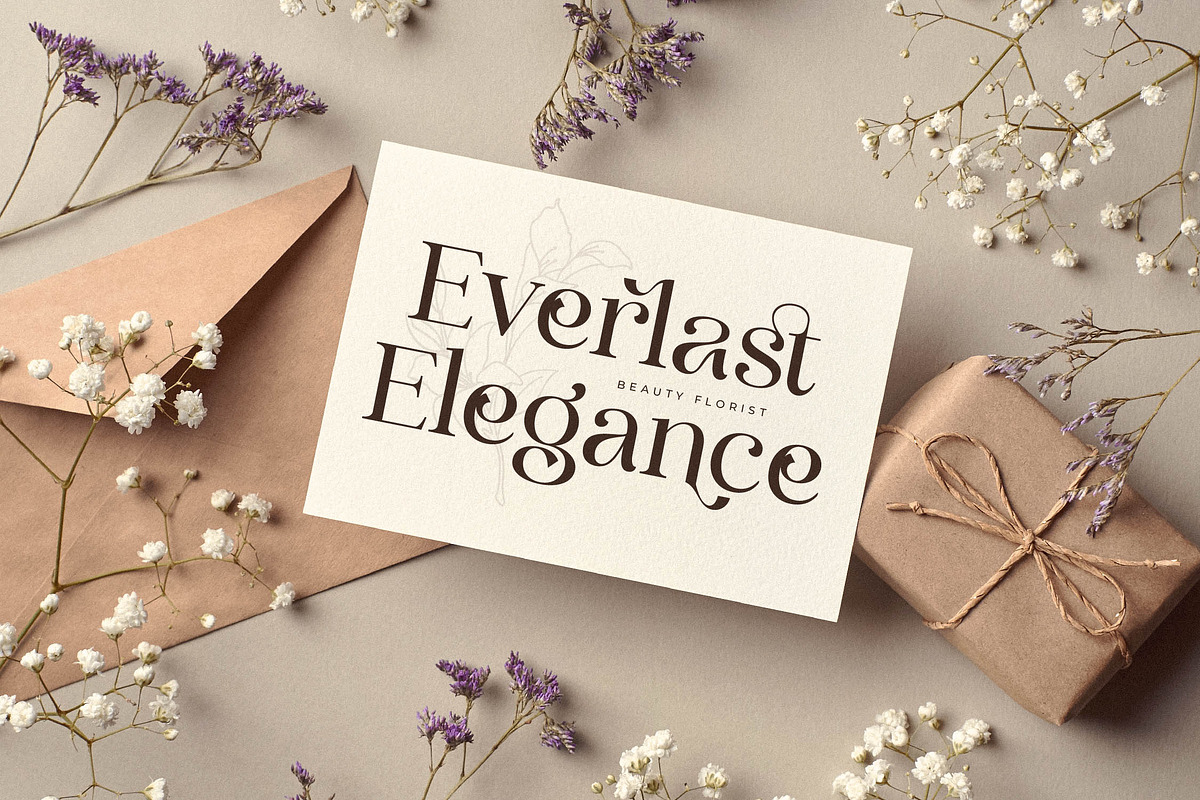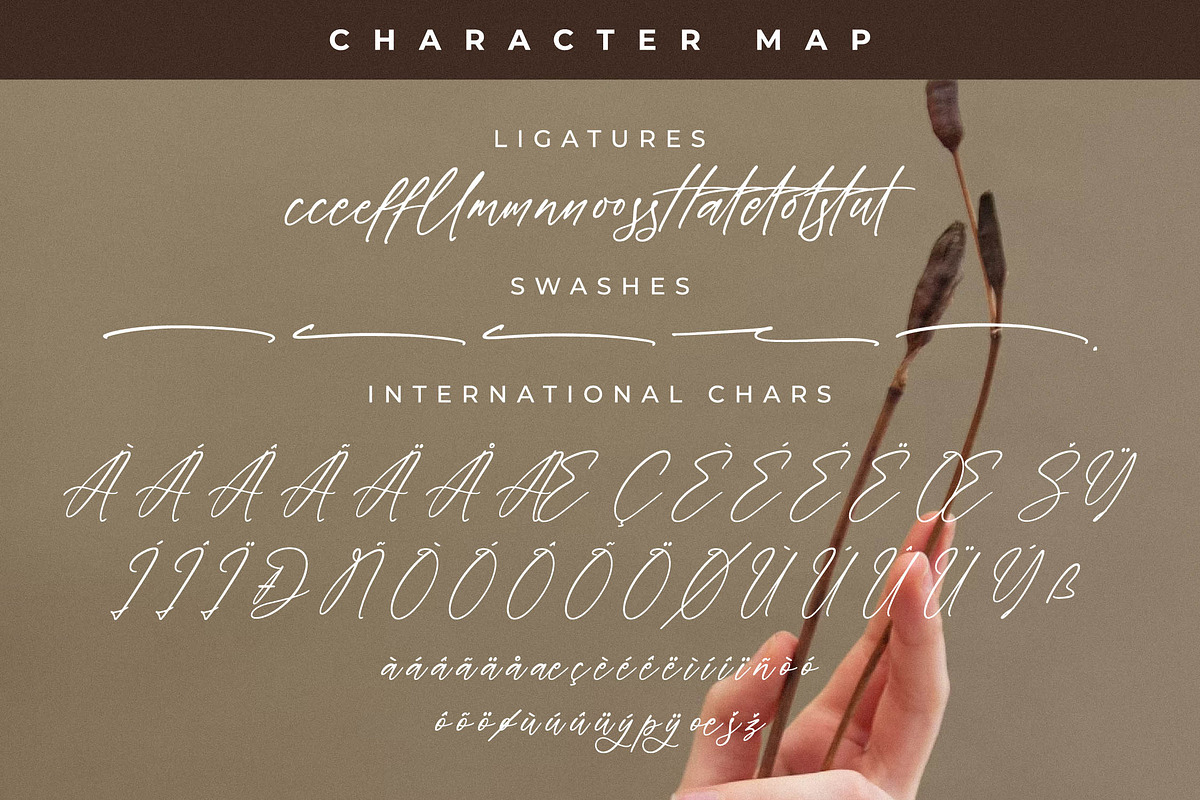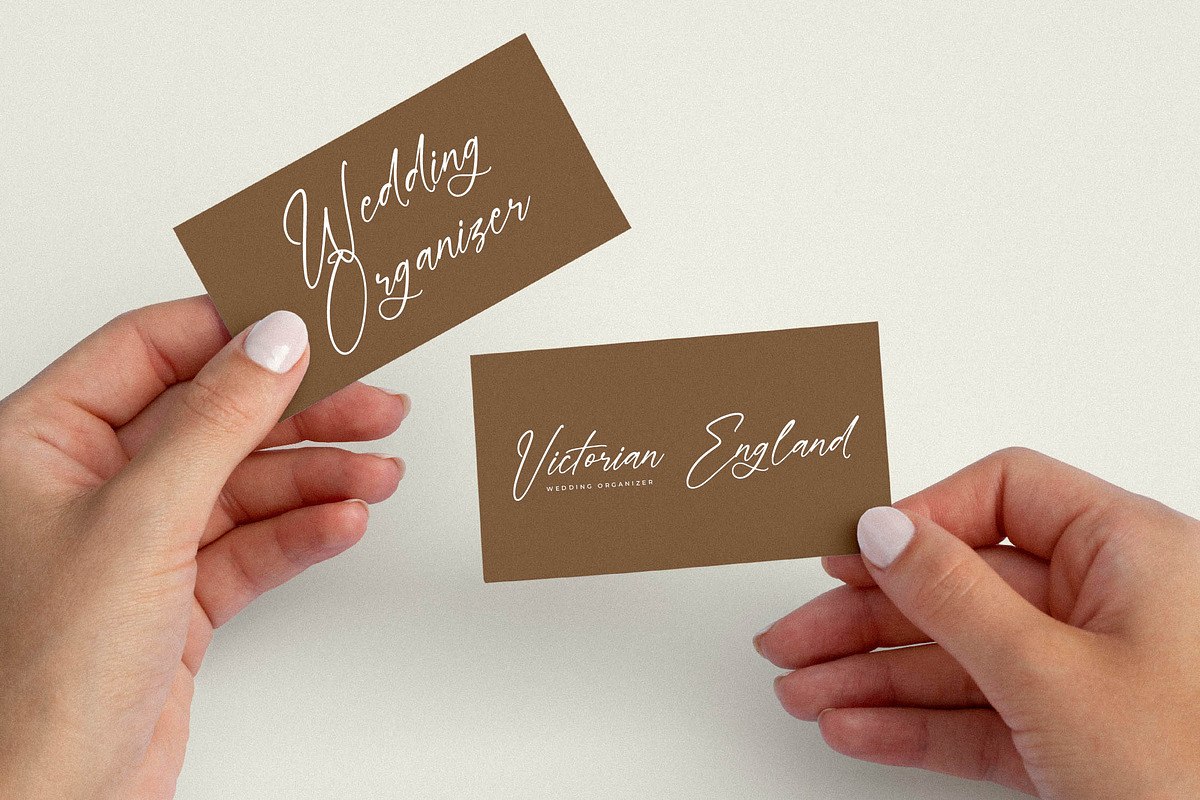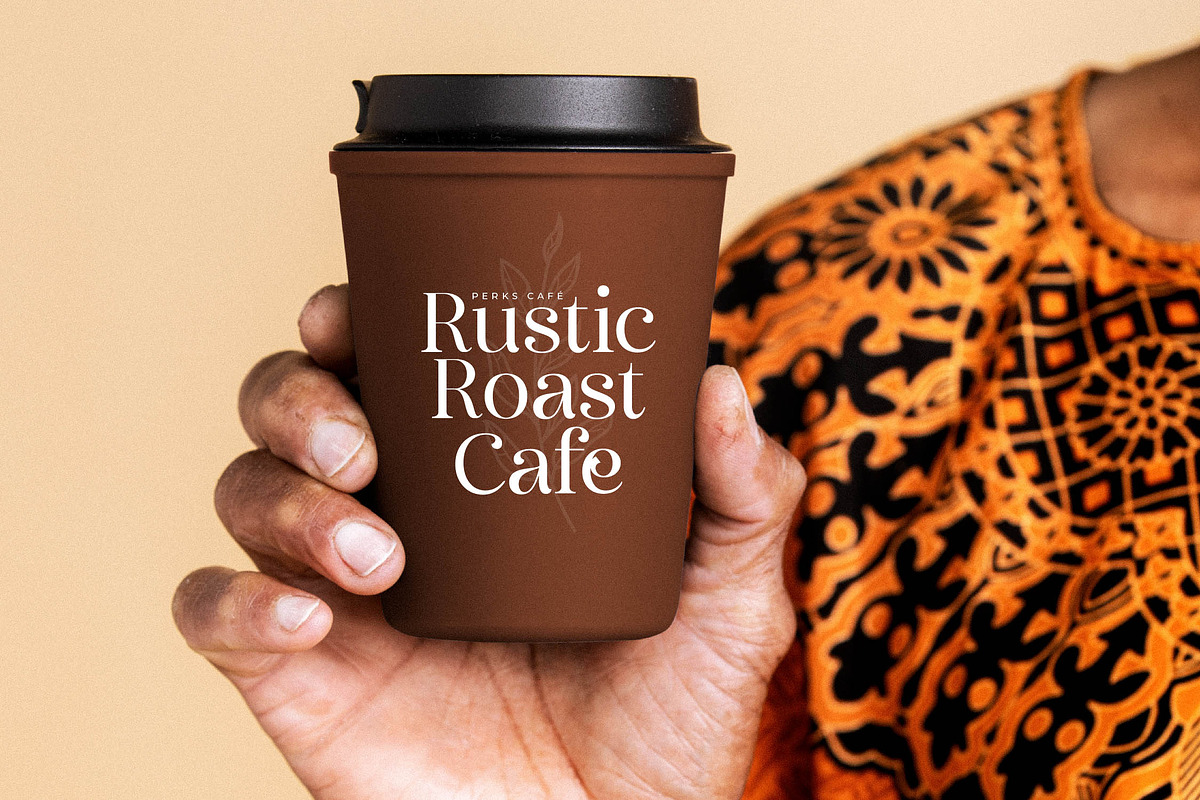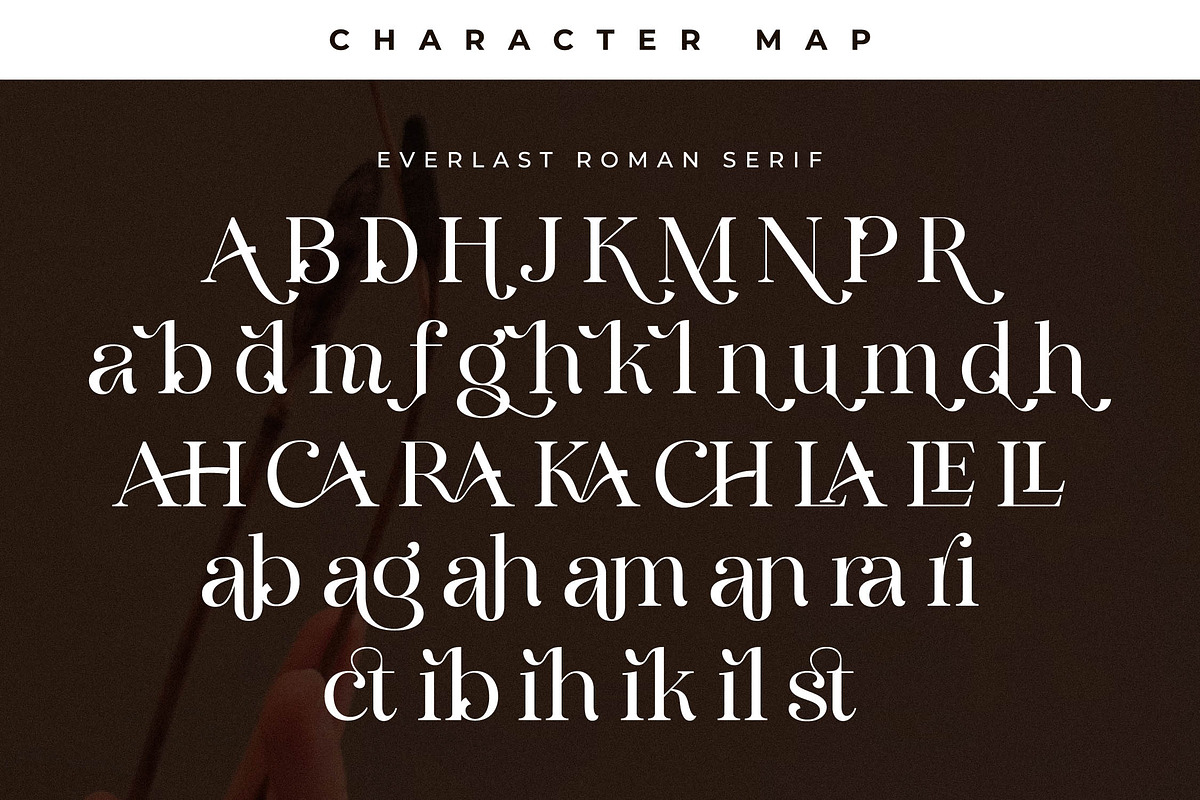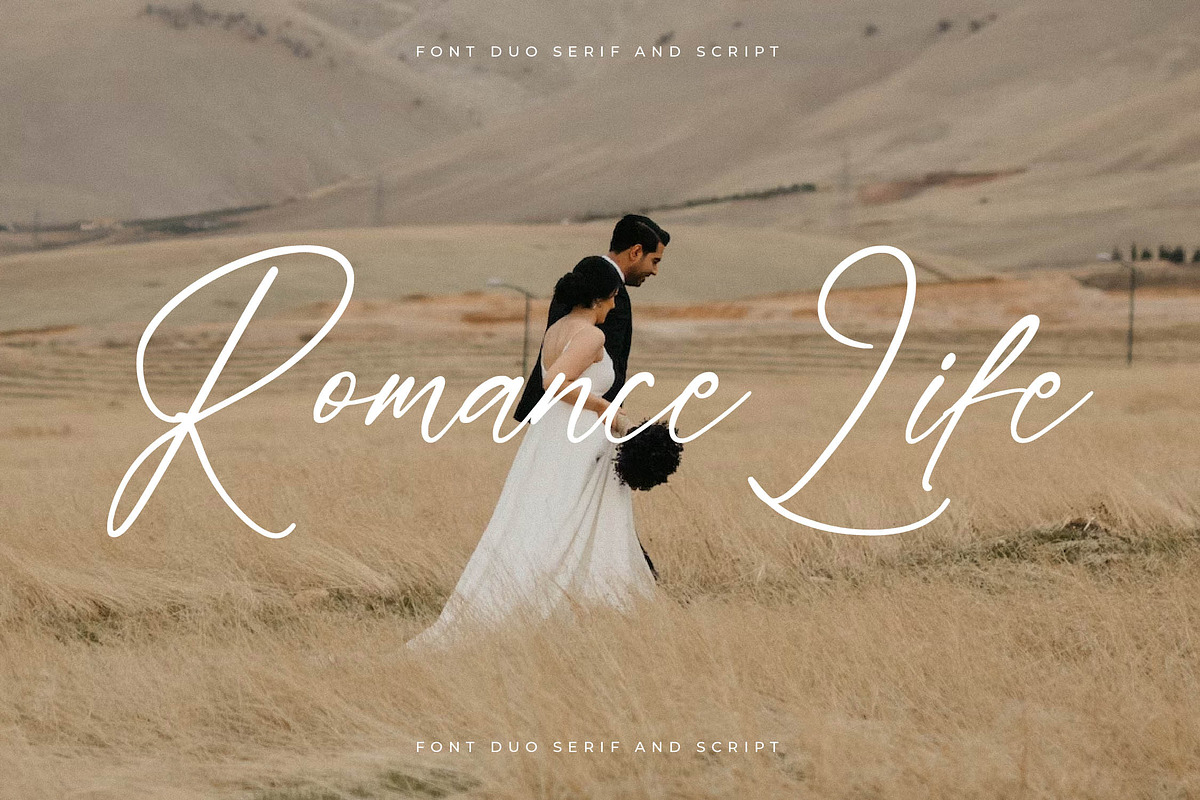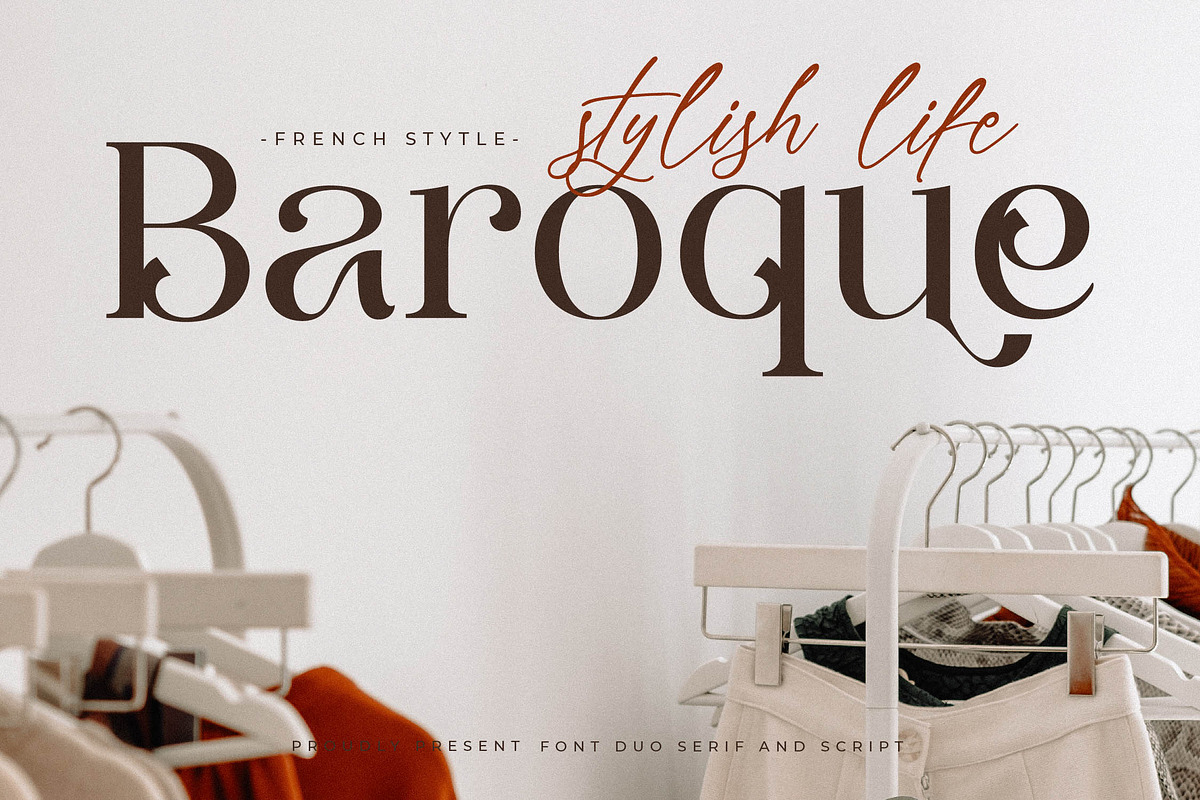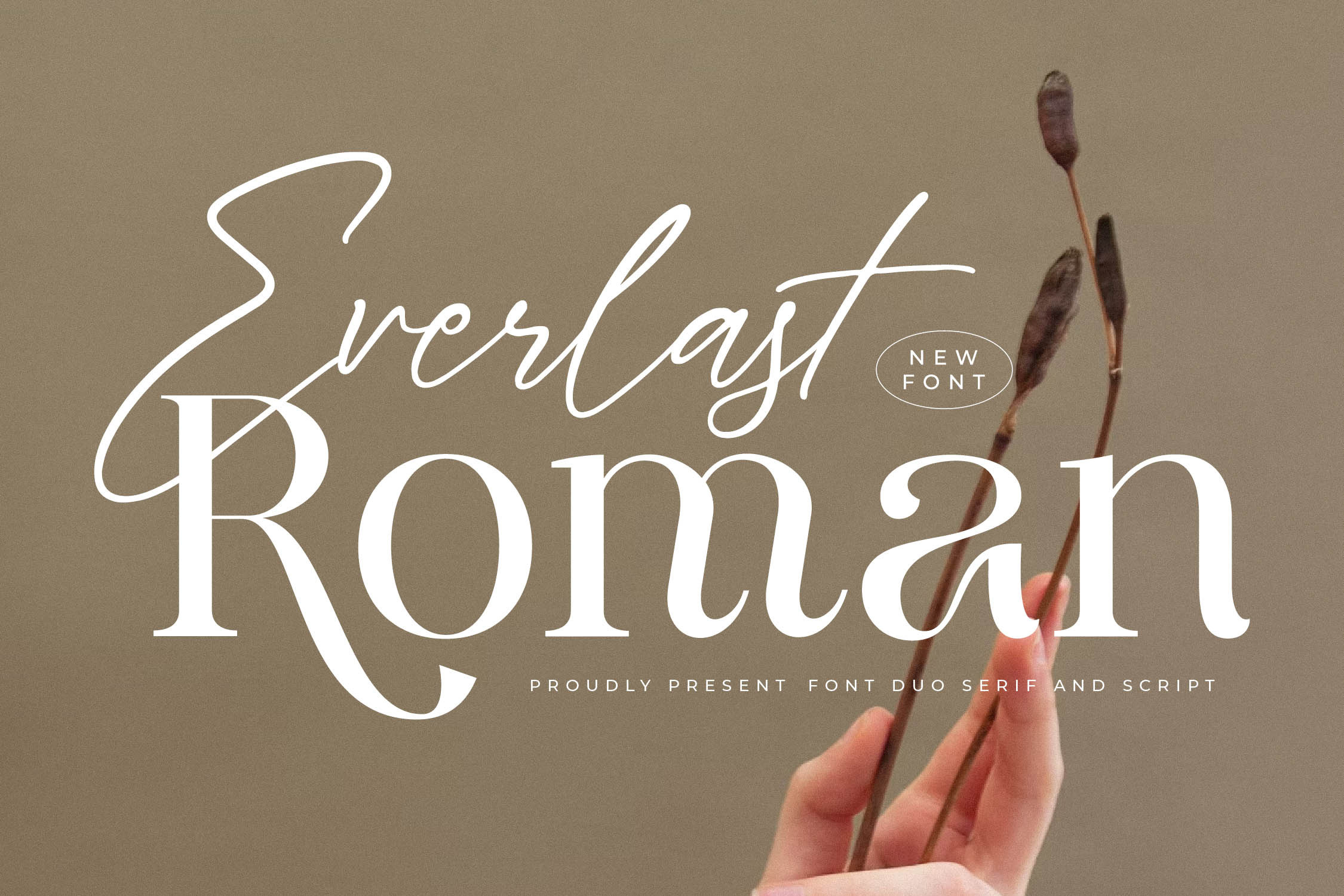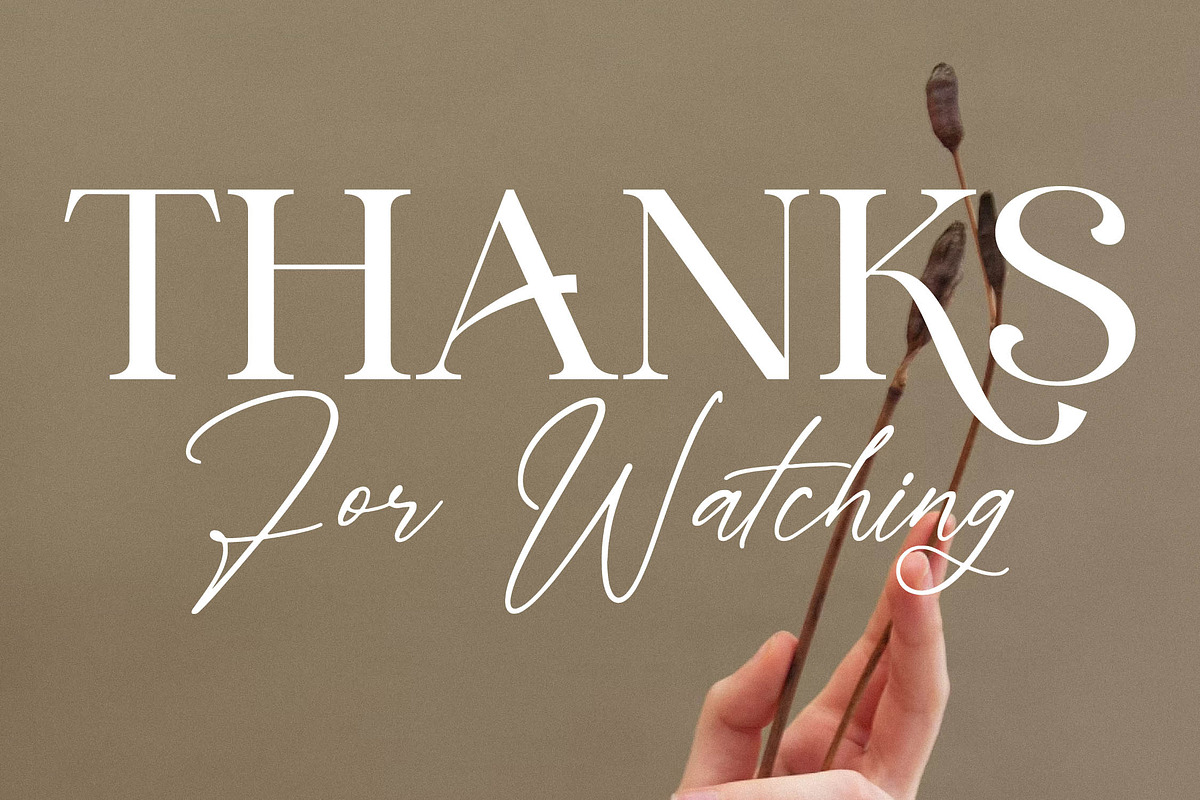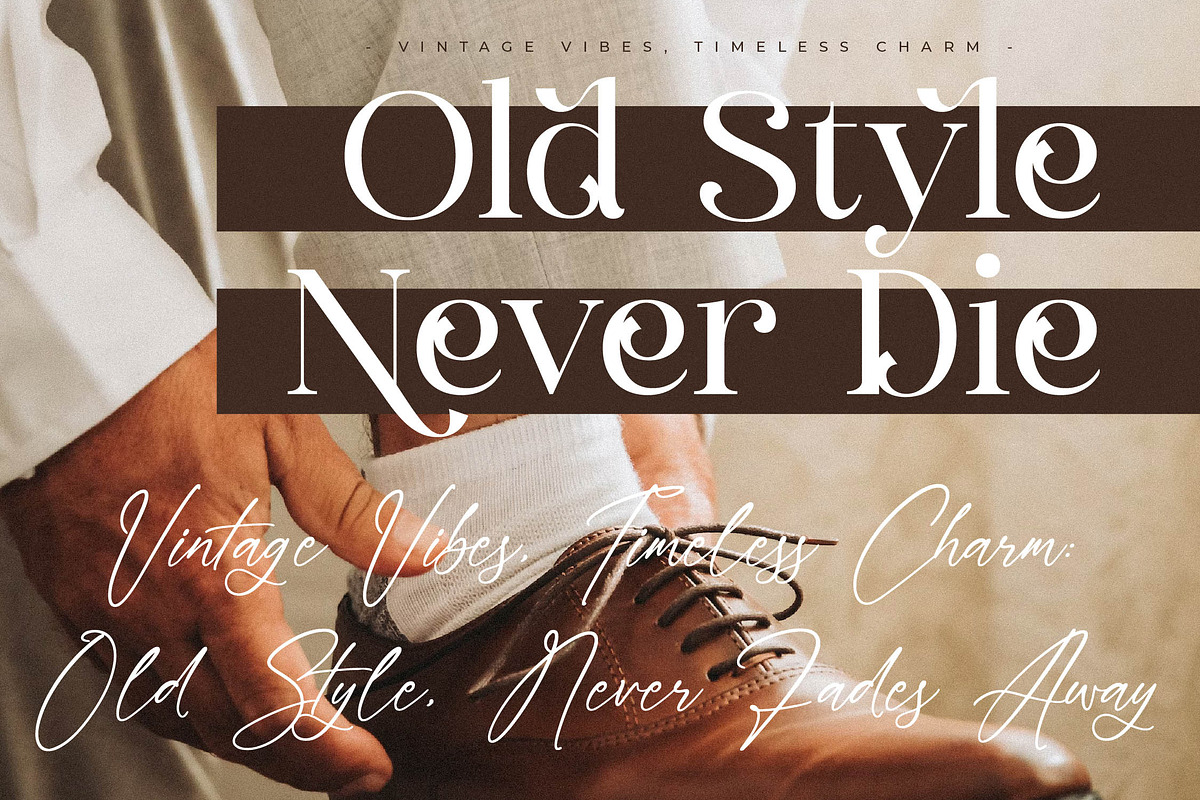
Everlast Roman Font Duo
Proudly present Everlast Roman Font Duo , created by Storytype, A serif and script typeface that has own unique style & modern look. This typeface is perfect for an elegant & luxury logo, book or movie title design, fashion brand, magazine, clothes, lettering, quotes, and so much more.